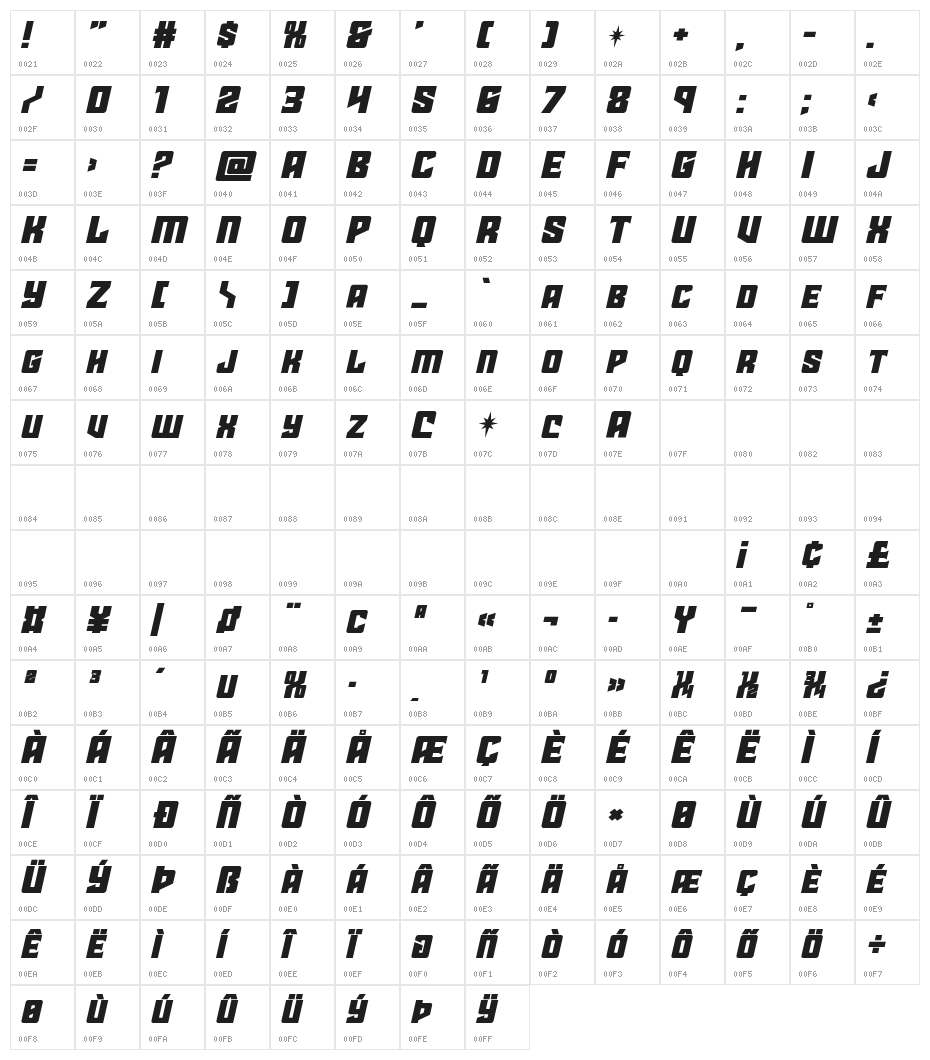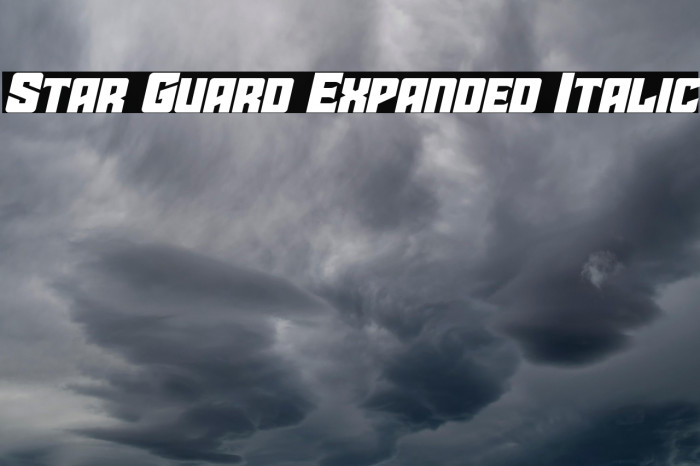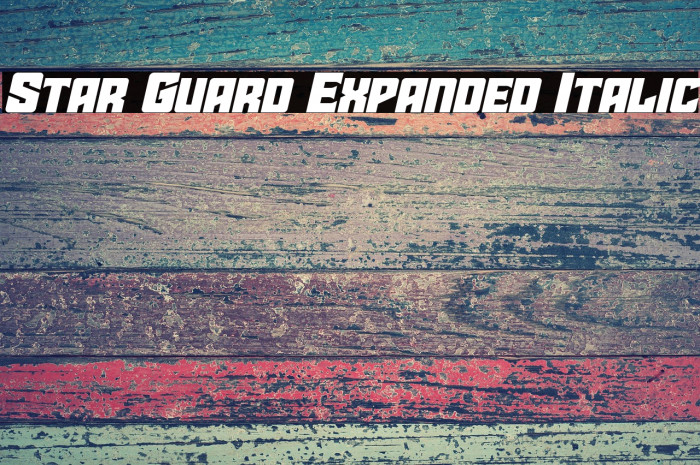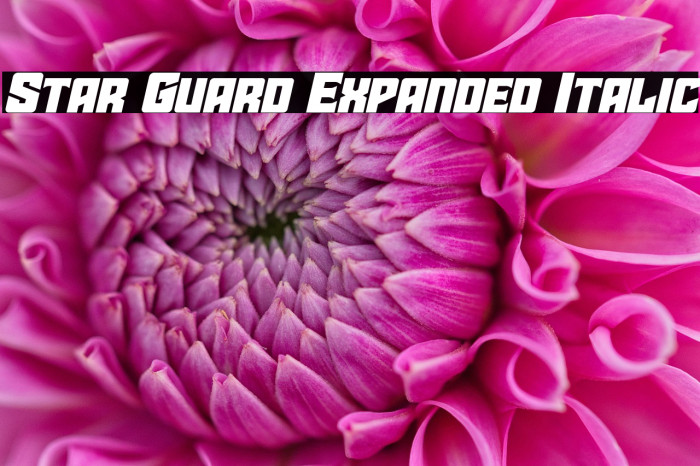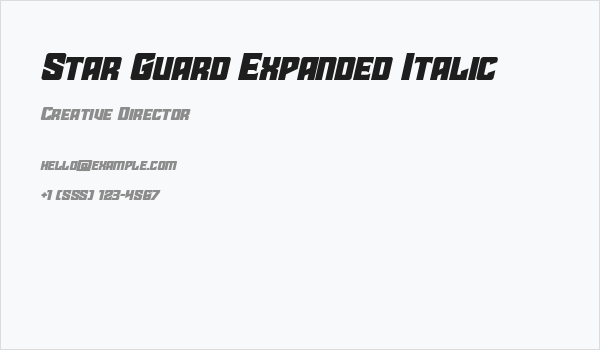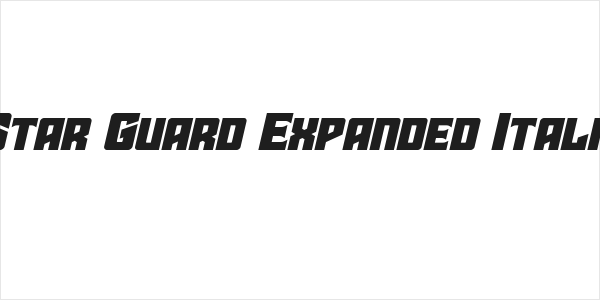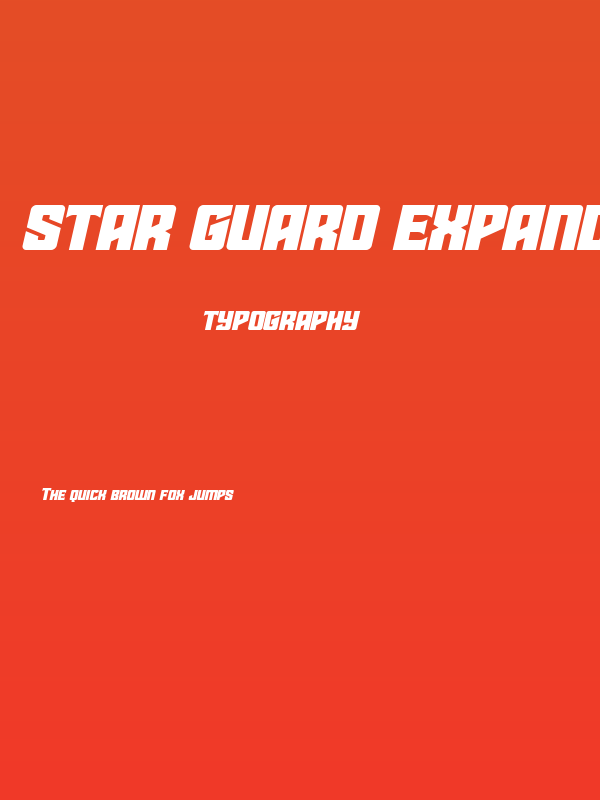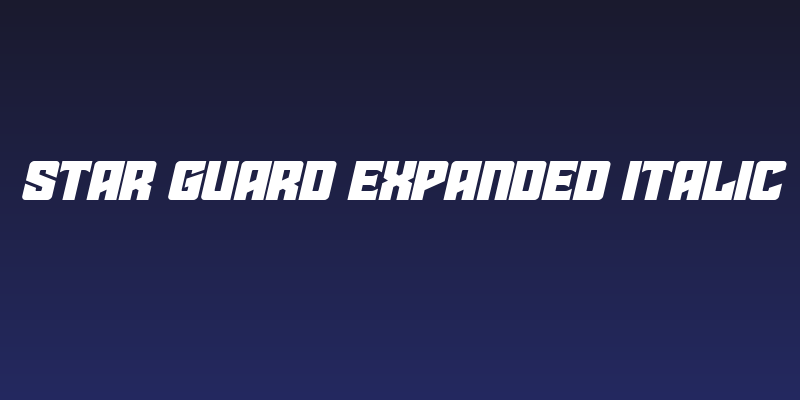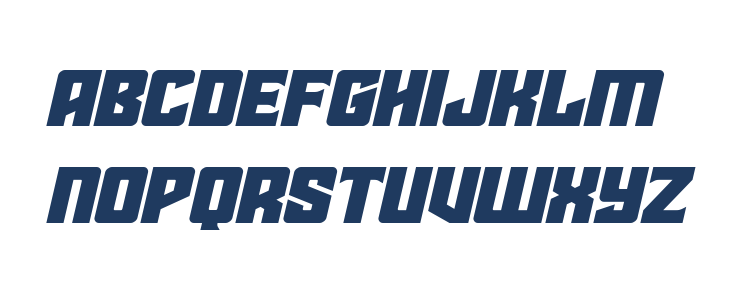
Star Guard Expanded Italic Font
Star Guard Expanded Italic Description
This font features a bold and dynamic style with an italic slant, giving it a sense of motion and energy. The characters are expanded, providing a wide and impactful appearance. The strokes are thick and consistent, contributing to a strong visual presence. The design is modern and sleek, with sharp angles and clean lines that enhance its futuristic feel. The uppercase and lowercase letters maintain a uniform style, while the numerals and special characters are crafted to match the overall aesthetic. This font is ideal for projects that require a bold statement and a contemporary look.
| Proposed Projects | Ideal for sports branding, action-themed posters, video game titles, and dynamic advertising campaigns. |